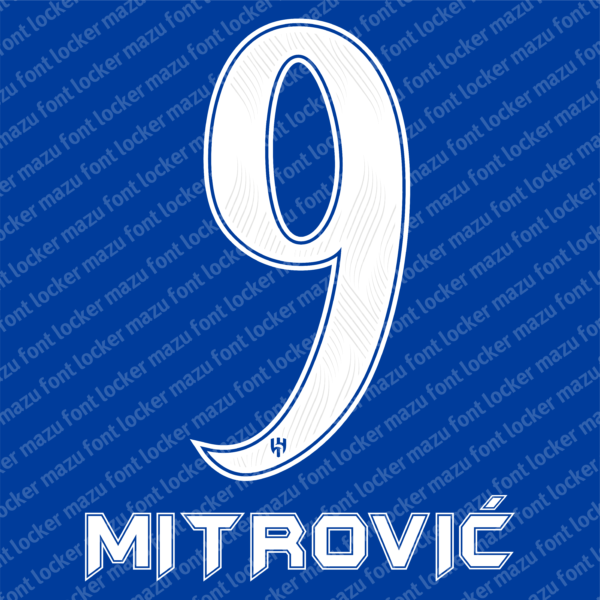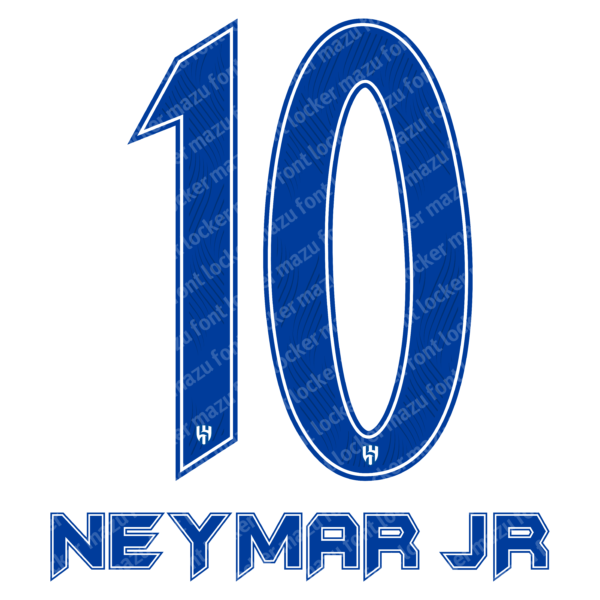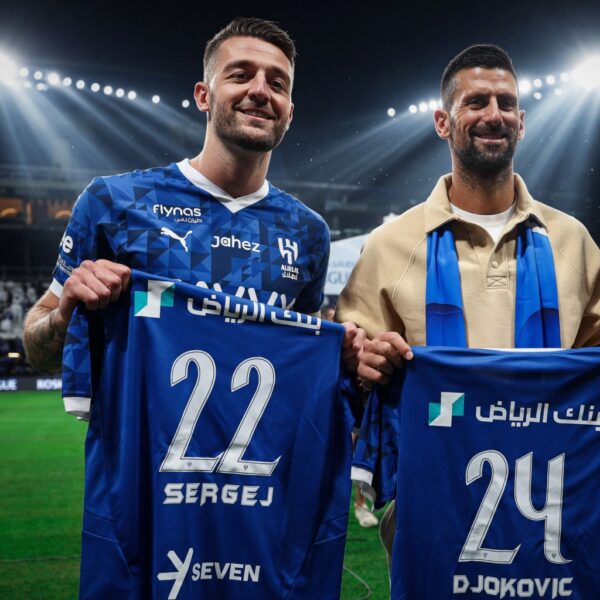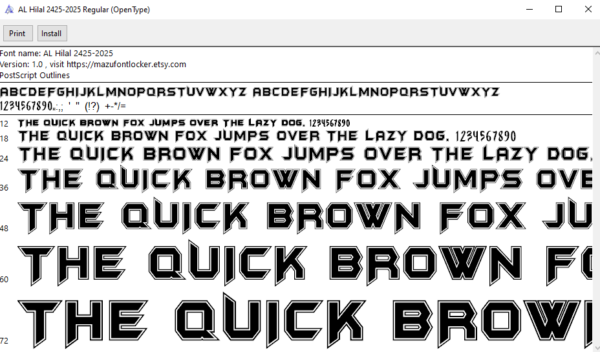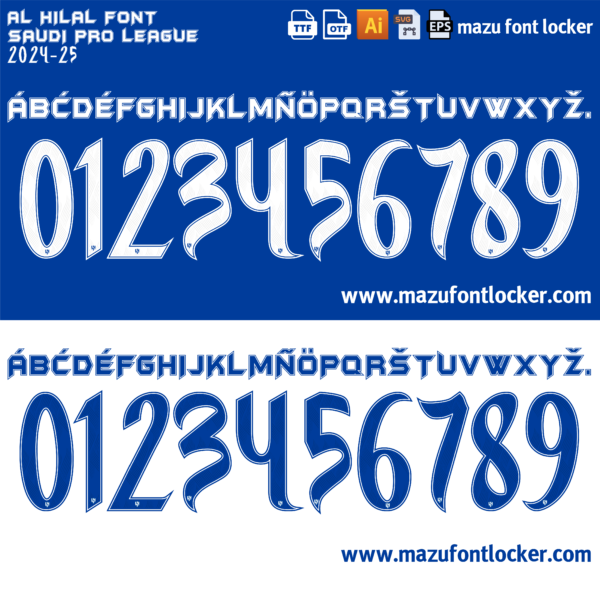
Al Hilal 2024-2025 Font – Dominant Blue Thunder Masterpiece
Download the Al Hilal 2024-2025 Font and unleash the unstoppable power of Saudi Arabia’s biggest club straight into your designs. This premium Al Hilal 2024-2025 Font perfectly captures the bold, majestic typography worn during one of the most dominant and star-studded seasons in club history. Every letter and number radiates the same explosive energy, royal elegance, and fierce ambition that defines Al Hilal’s legendary 2024-2025 campaign.
Whether you’re designing football posters, social media graphics, custom jerseys, fan merchandise, or professional sports visuals, the Al Hilal 2024-2025 Font delivers authentic club identity with sharp, powerful characters that command attention. The rich blue tones and commanding presence make it ideal for headlines, quotes, and eye-catching artwork that instantly screams prestige and victory.
Al Hilal 2024-2025 Font Vector
The Al Hilal 2024-2025 Font is a premium, high-precision football jersey font vector meticulously engineered to capture the fearless energy, explosive dominance, and electrifying identity of Al Hilal’s legendary 2024-2025 campaign.
Inspired by the mighty Blue Wave and their iconic high-intensity performances throughout the unforgettable 2024-2025 season, this font unleashes a bold, aggressive, and majestic presence that radiates unbreakable Al Hilal pride, rich Saudi heritage, and unstoppable warrior spirit. Every letter and number has been painstakingly recreated with razor-sharp precision to embody the vibrant blue and white identity, relentless fighting mentality, and glorious legacy that makes Al Hilal one of the most dominant and feared forces in Asian and world football.
Feel the fire of the Kingdom Arena. Ignite the passion. Unleash the legendary spirit of the Blue Wave and the unstoppable power of Al Hilal 2024-2025.
• Authentic 2024-2025 Al Hilal jersey lettering style
The authentic lettering style helps recreate the classic look of the Al Hilal 2024-2025 kit with professional accuracy.
Unlike generic jersey fonts, this premium set is crafted with obsessive attention to authenticity and unmatched precision. Every detail is faithfully recreated from the original match lettering style used by Al Hilal during the explosive 2024-2025 season — capturing the true fire, dominance, and unbreakable spirit of the mighty Blue Wave.
This enables designers and collectors to create ultra-realistic football shirt designs that look like official kits straight from the iconic Kingdom Arena.
This Al Hilal 2024-2025 font vector set is designed for authentic football jersey customization and works perfectly for retro football projects, collector designs, and professional sportswear artwork.